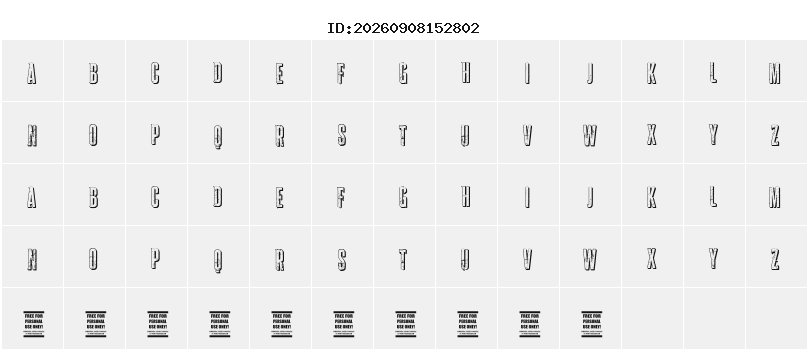
• Designer: douglas vitkauskas
About vtks storm 2.ttf
vtks storm 2.ttf is a modern, elegant sans-serif font designed for ultimate readability and visual harmony. Perfect for branding, headlines, web design, and print materials.